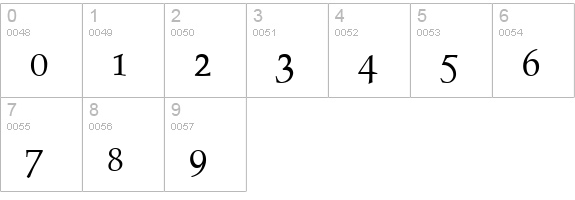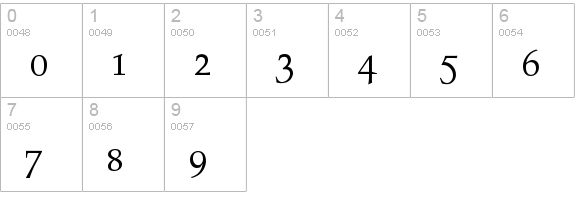
ProsperoSmallCaps Font Details
ProsperoSmallCaps font is a timeless and elegant typeface that exudes sophistication and style. Its distinctive small caps design adds a touch of class to any project, making it perfect for high-end branding, editorial layouts, and formal invitations. The letters are meticulously crafted with precision and attention to detail, resulting in a harmonious balance between classic and contemporary aesthetics. What sets ProsperoSmallCaps font apart is not just its beauty, but also its accessibility. This exquisite font is available for free download exclusively at FontsMarket.com, making it easily accessible to designers, creators, and enthusiasts alike. Whether you're working on a wedding invitation, a luxury brand identity, or a prestigious event poster, ProsperoSmallCaps font will elevate your design with its refined charm and sophistication. Download ProsperoSmallCaps font today and bring a touch of timeless elegance to your projects.